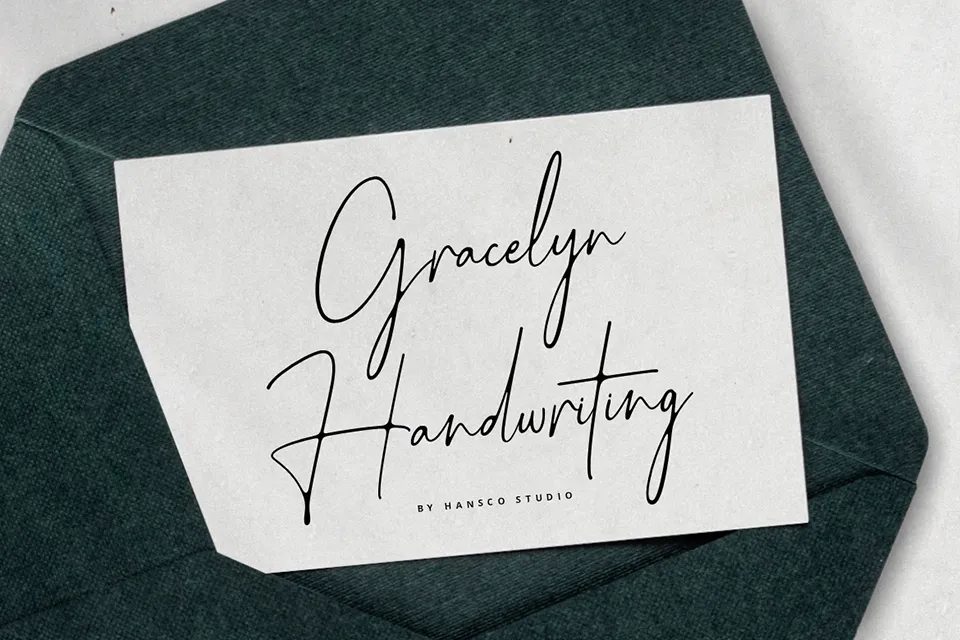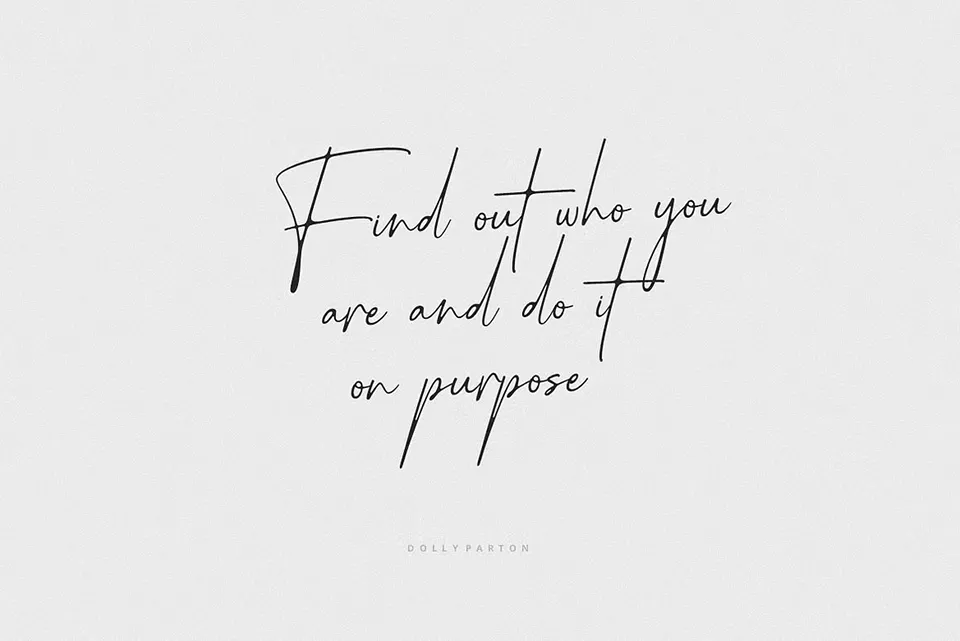
Gracelyn Handwriting Font
Gracelyn Handwriting Font is an elegant and modern script typeface that captures the beauty of natural handwriting. Its delicate, flowing letterforms and graceful curves make it perfect for wedding invitations, greeting cards, branding, and personal stationery. The font’s refined style adds a touch of sophistication and warmth to any project, ensuring your text feels both personal and stylish. Gracelyn Handwriting is easy to read while maintaining a unique, handcrafted charm, making it suitable for both formal and creative uses. With its timeless appeal, this font brings a sense of elegance and individuality to every design.